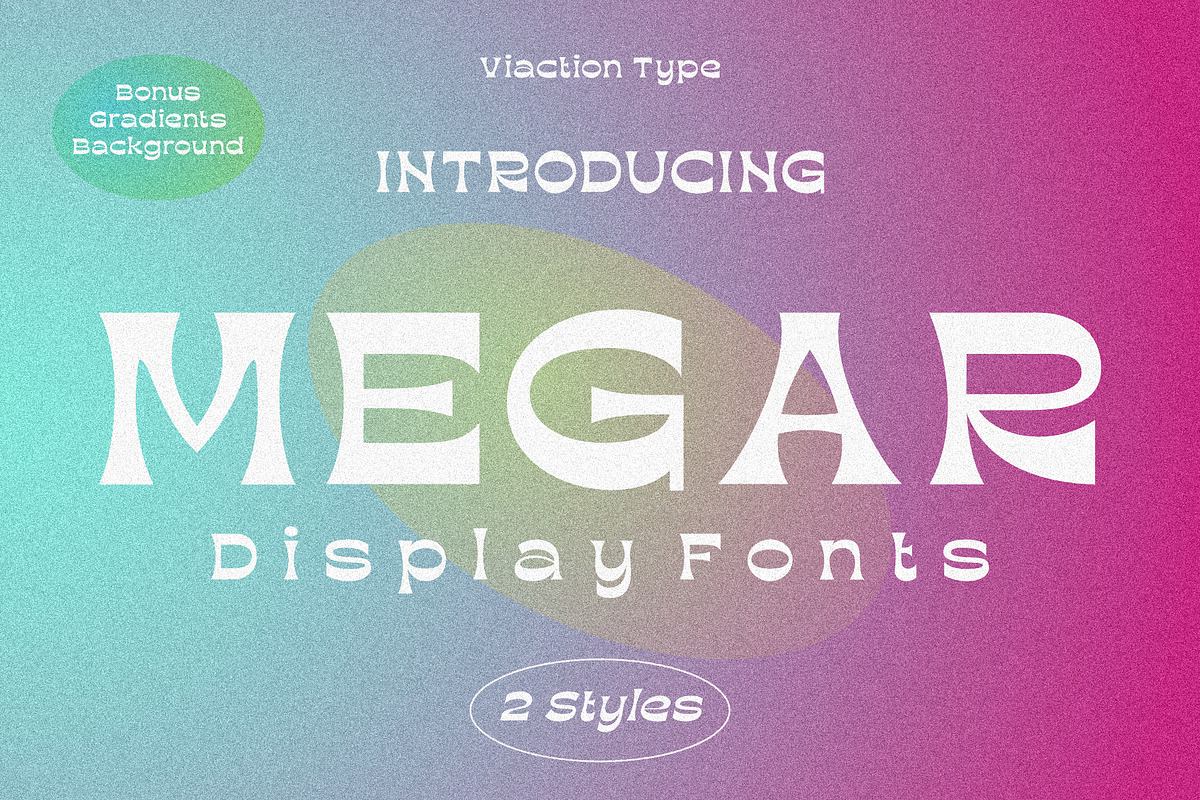
VT Megar Font Free Download is a bold and stylish retro typeface inspired by vintage design from the 70s and 80s. With its chunky curves, strong lines, and nostalgic flair, VT Megar is perfect for posters, t-shirt designs, album covers, branding, packaging, and social media graphics that need a touch of retro cool.
Carefully crafted to bring back the groove of vintage typography, VT Megar Font Free Download blends classic aesthetics with modern usability. Its bold personality makes it ideal for headlines and logos that need to stand out with attitude and flair.
Whether you're designing for a music event, retro product line, or a creative brand that celebrates the past, VT Megar delivers impact, style, and a blast of nostalgia. It pairs beautifully with script fonts or minimalist sans-serifs for a balanced, eye-catching look.